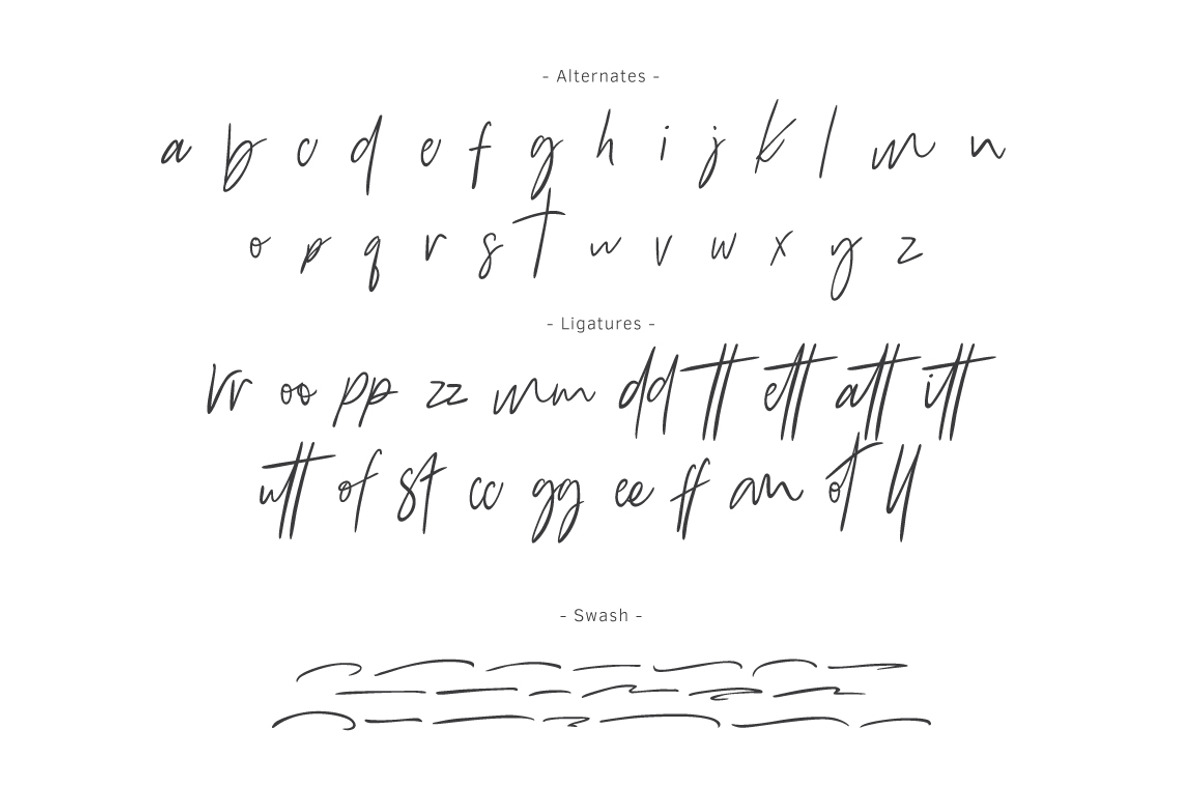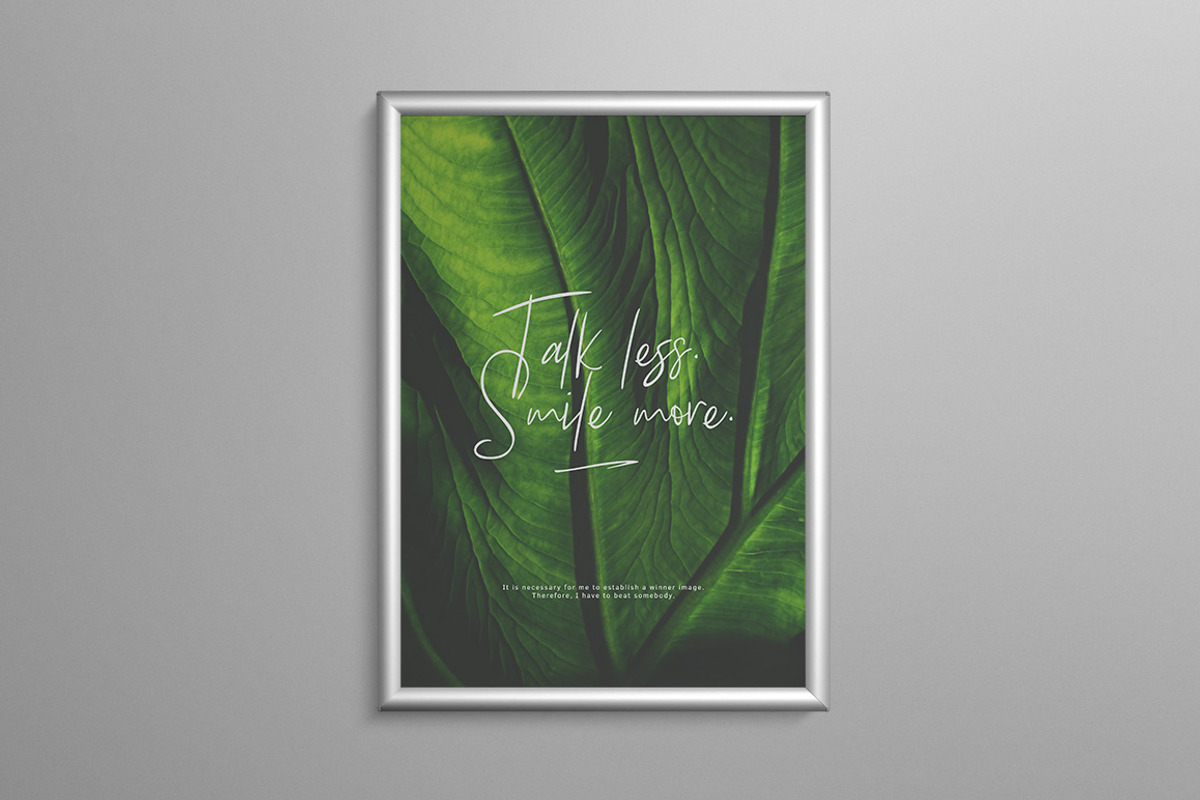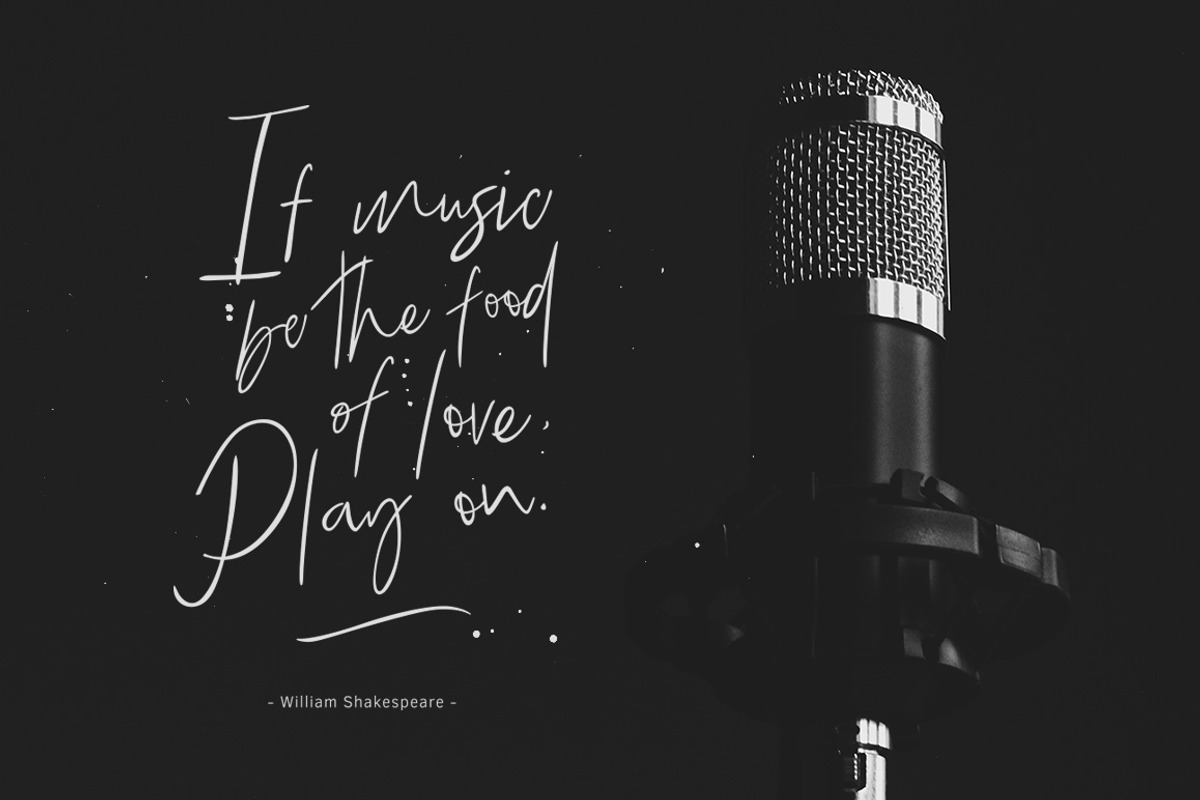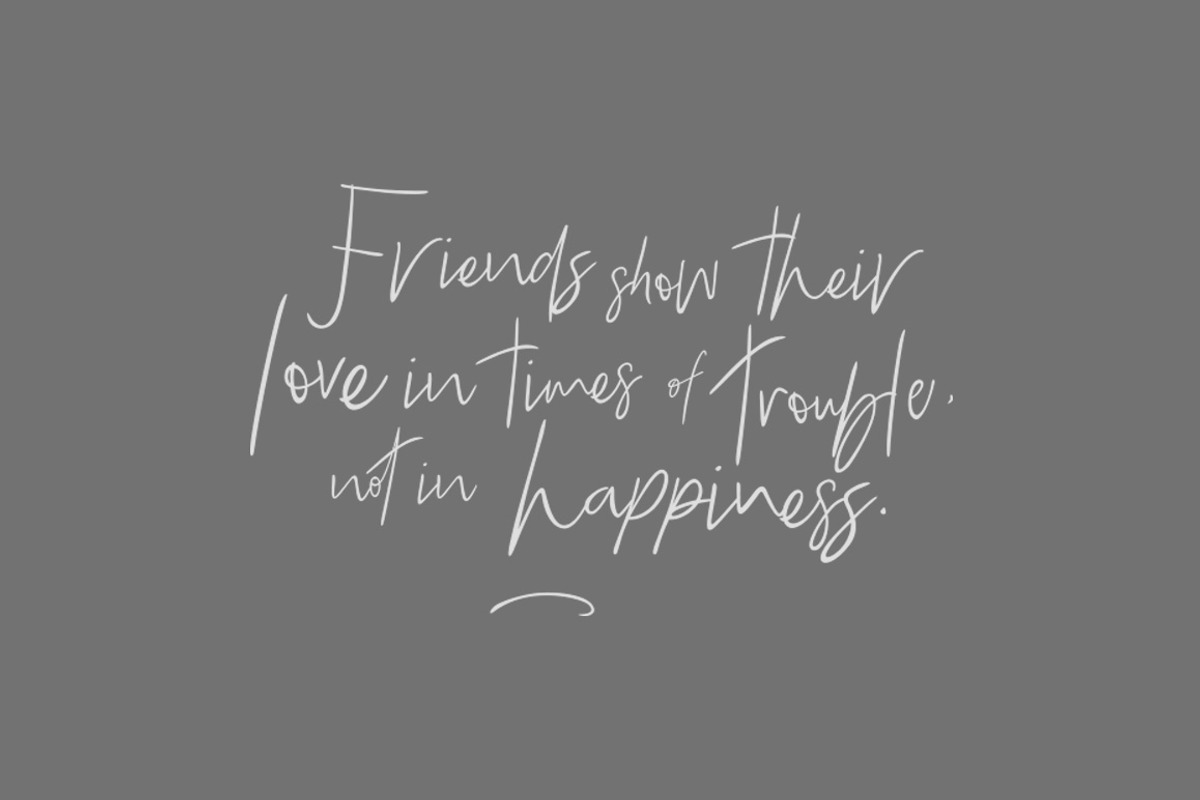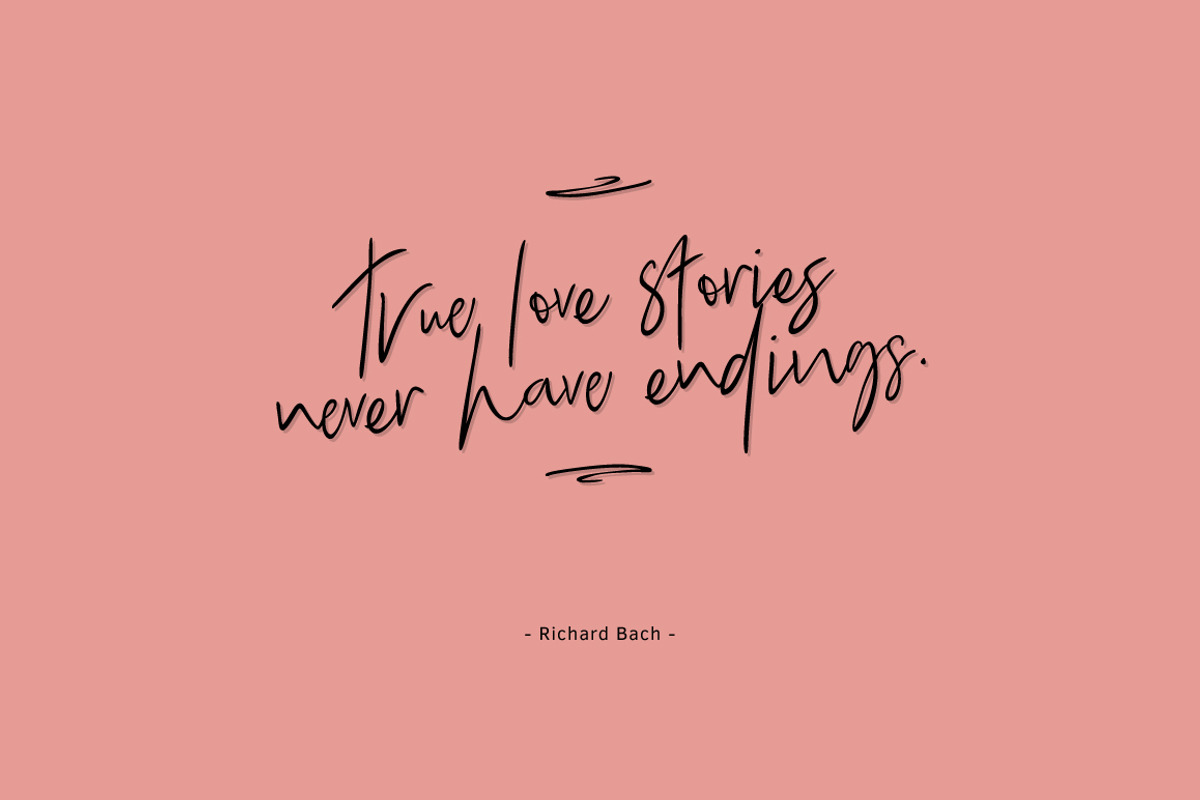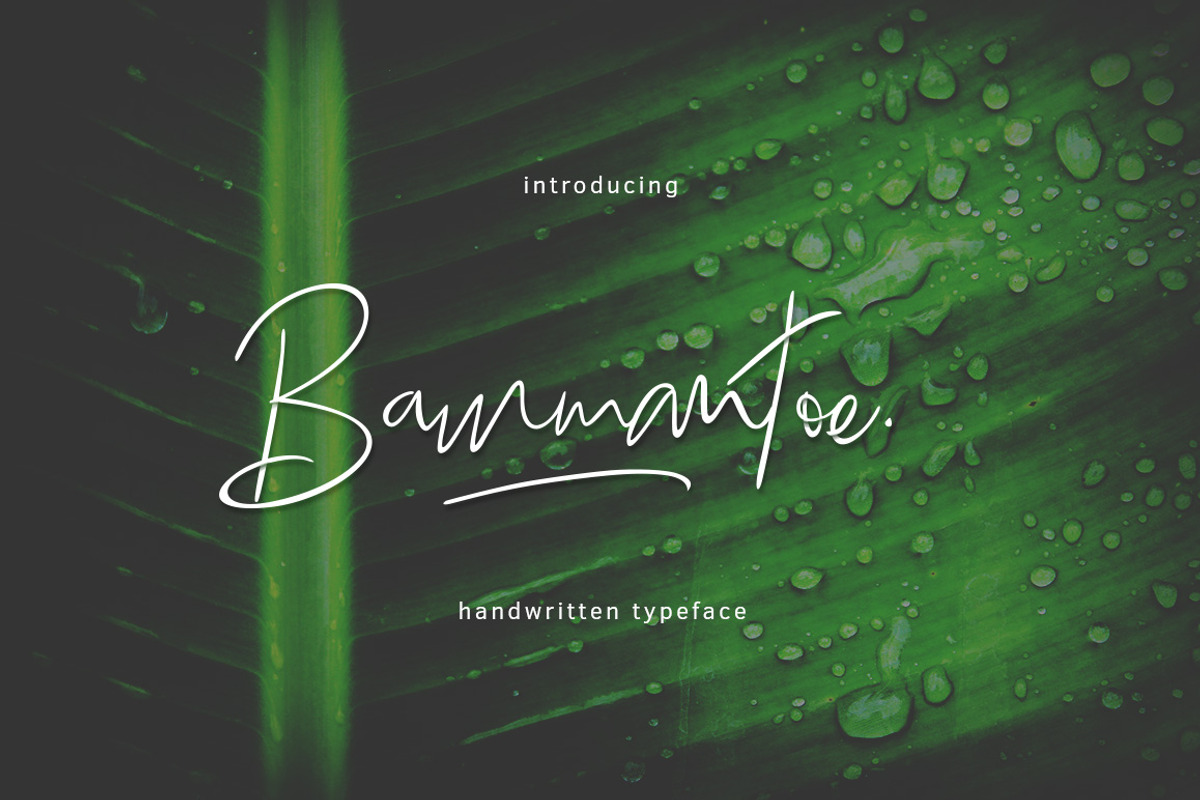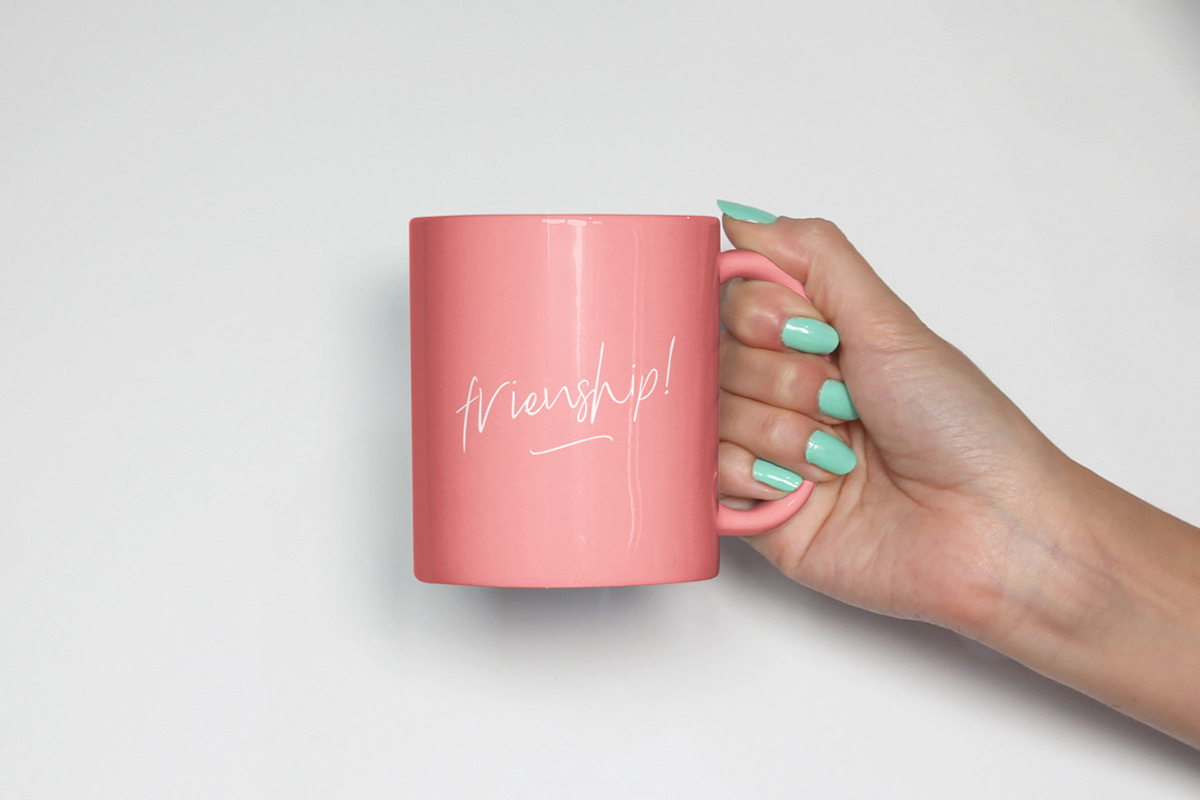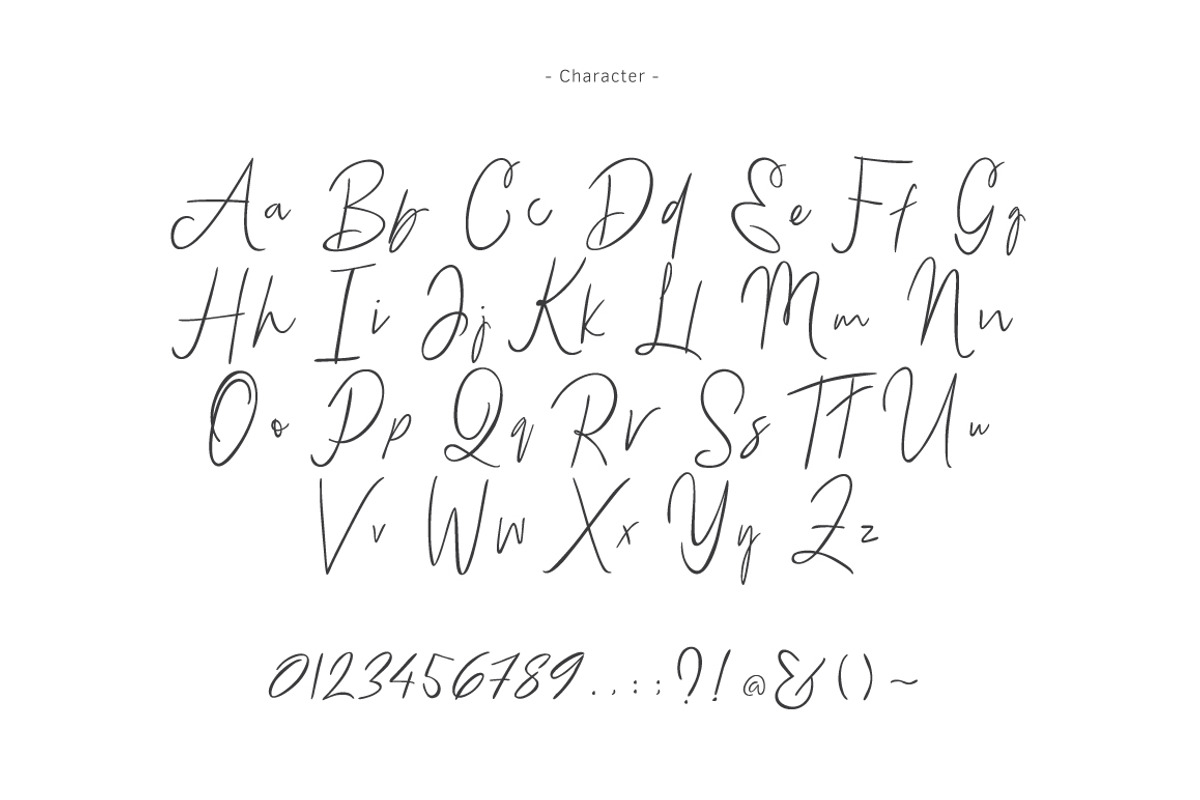
Bammantoe Typeface
Bammantoe Typeface by Thirtypath Studio is a font selected for branding, posters, packaging, typography.
- Ligatures • Are also available for several lowercase characters (double-letters which flow more naturally).
Why Bammantoe Typeface is worth a look
Bammantoe Typeface by Thirtypath Studio fits naturally into Branding, posters, packaging, typography.